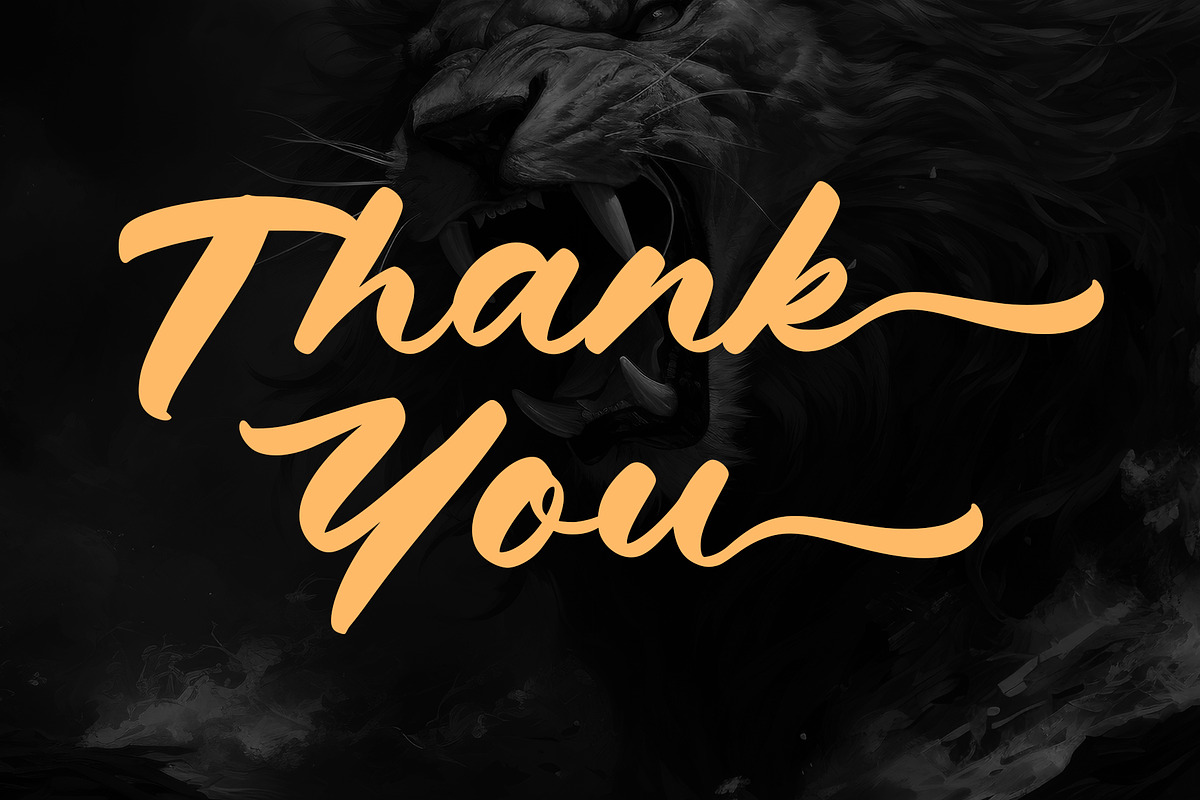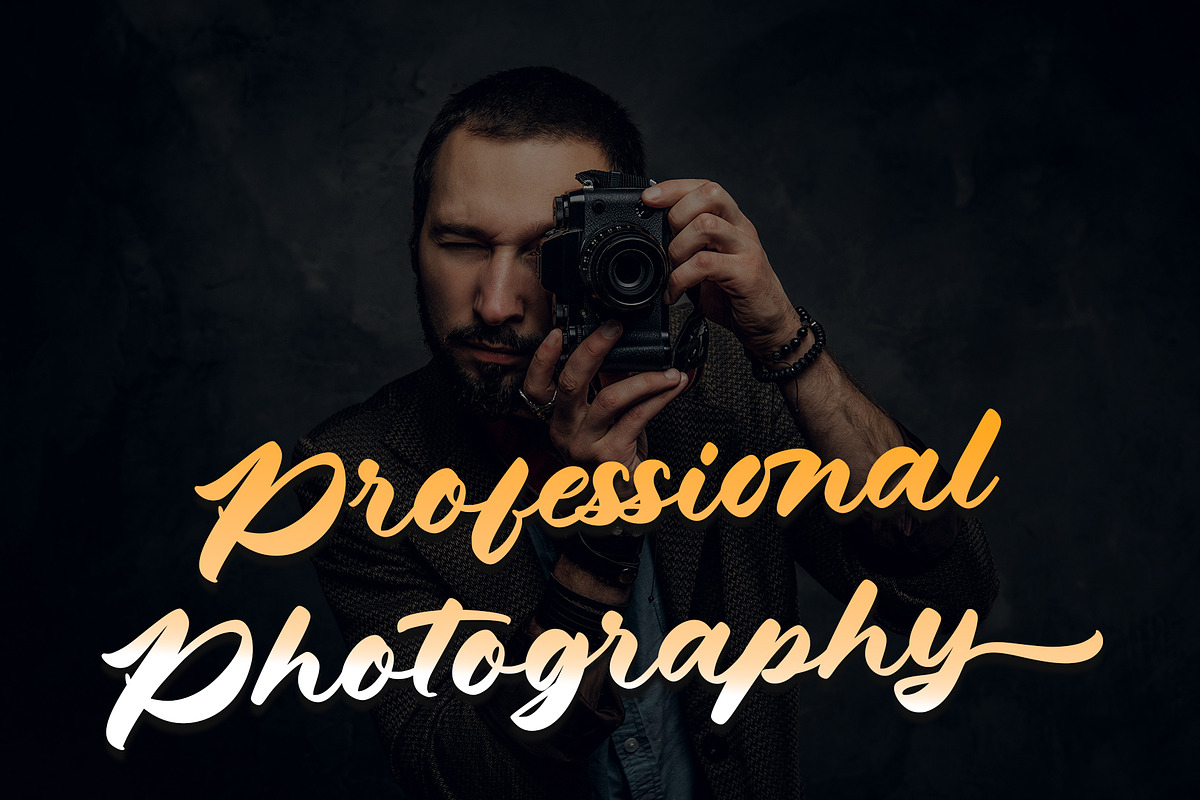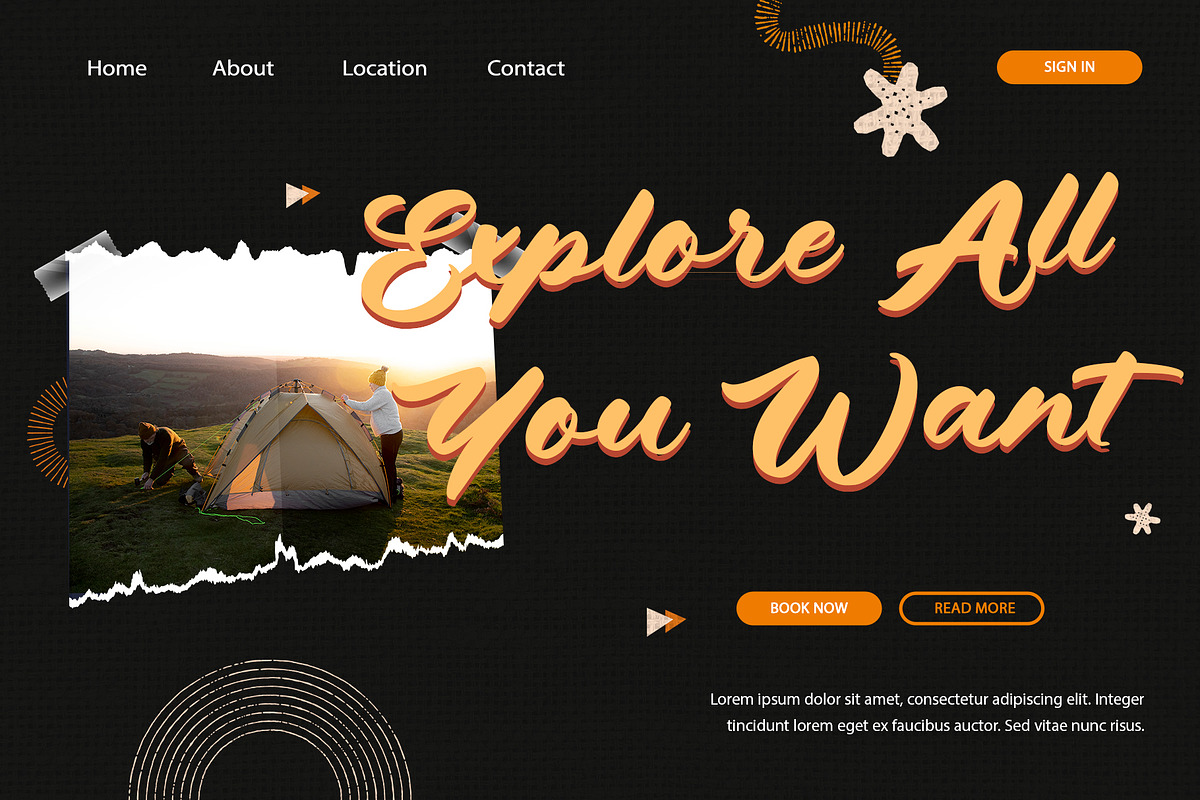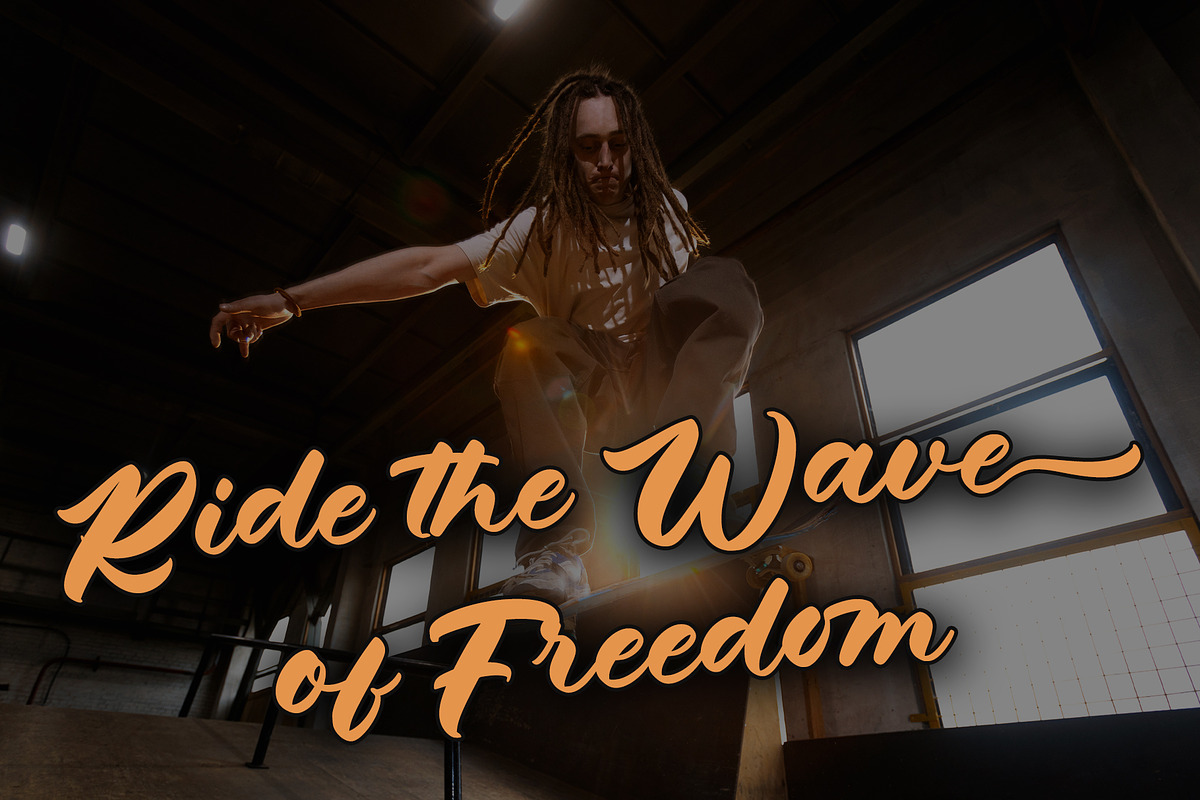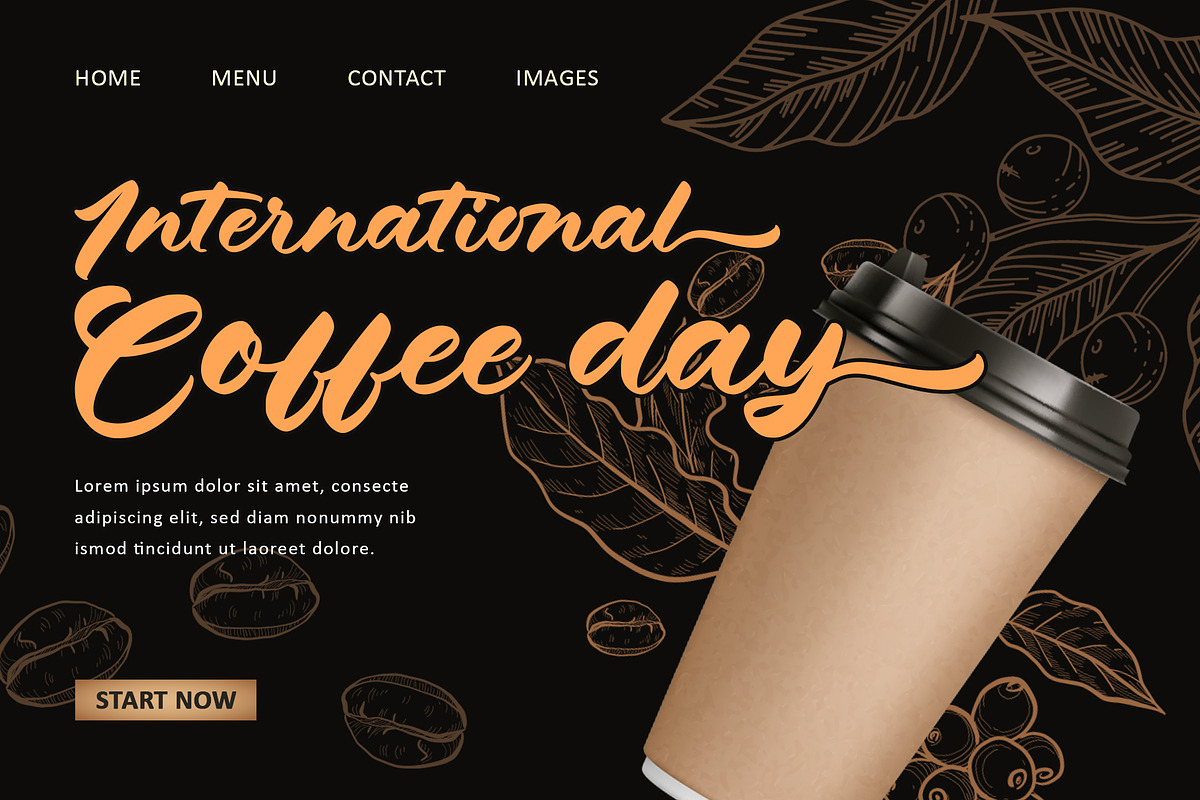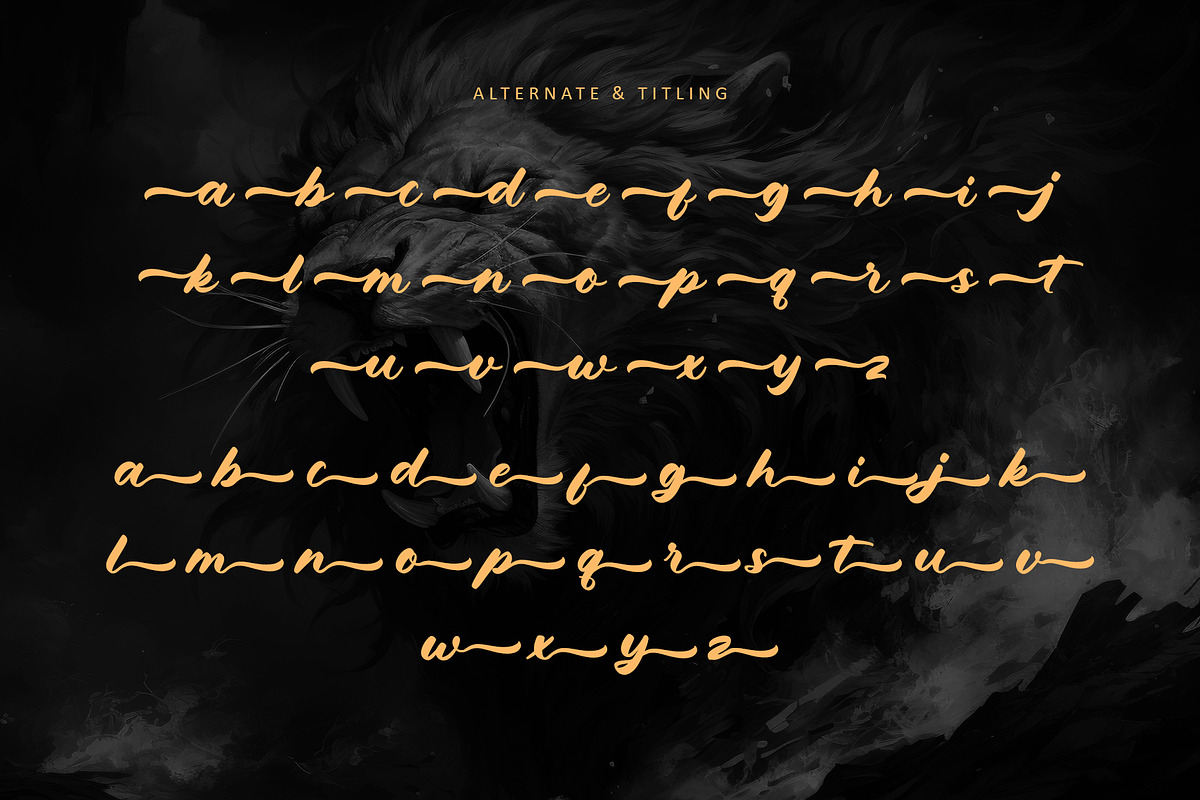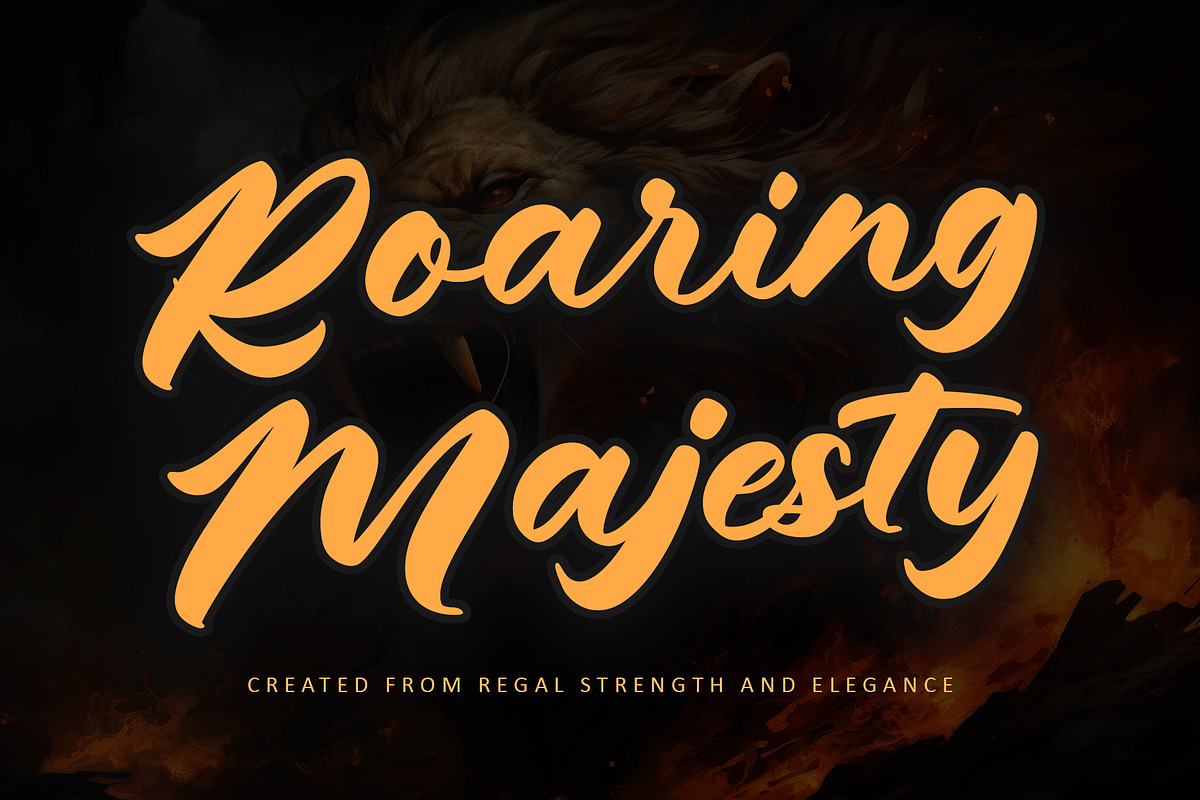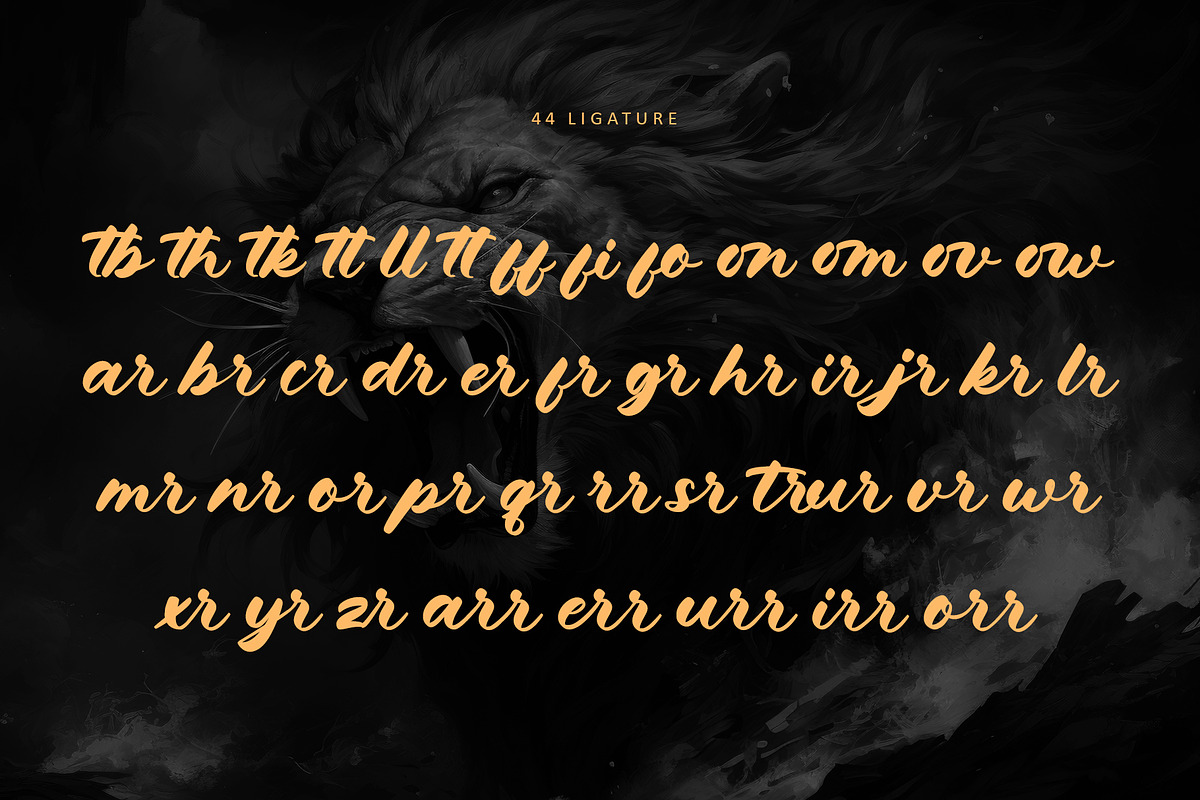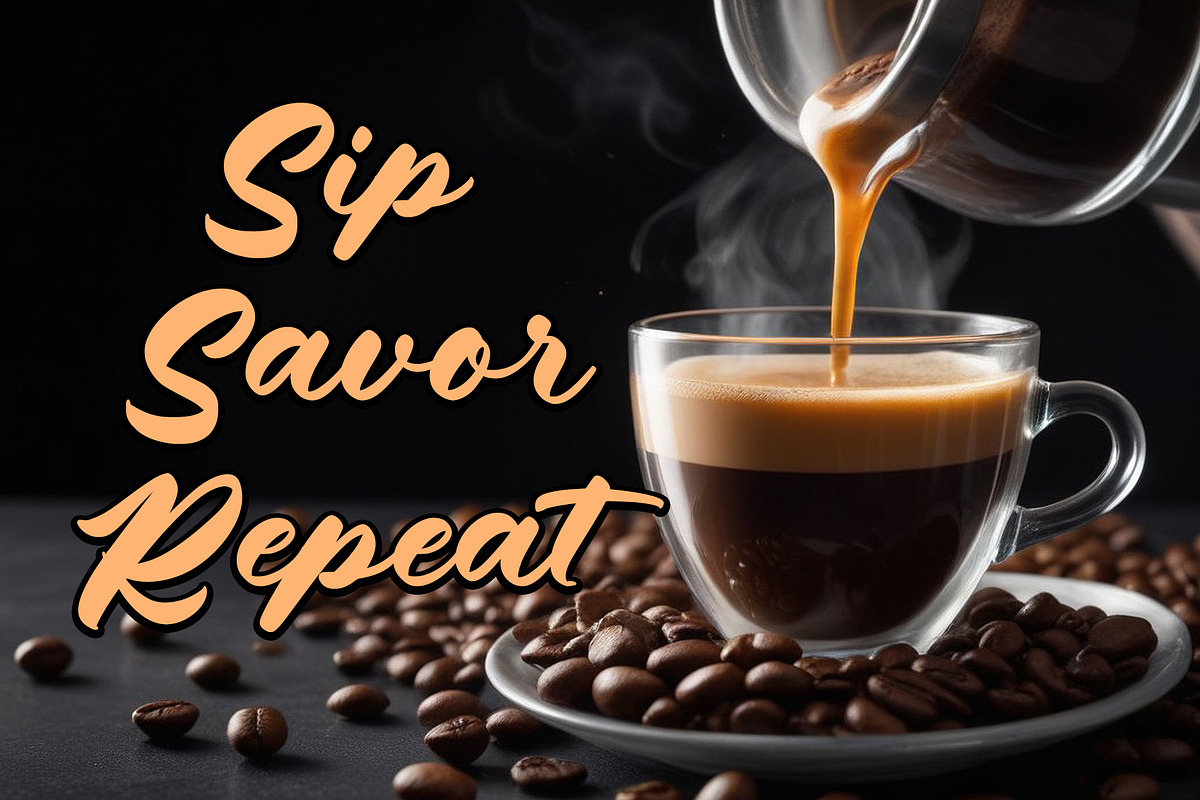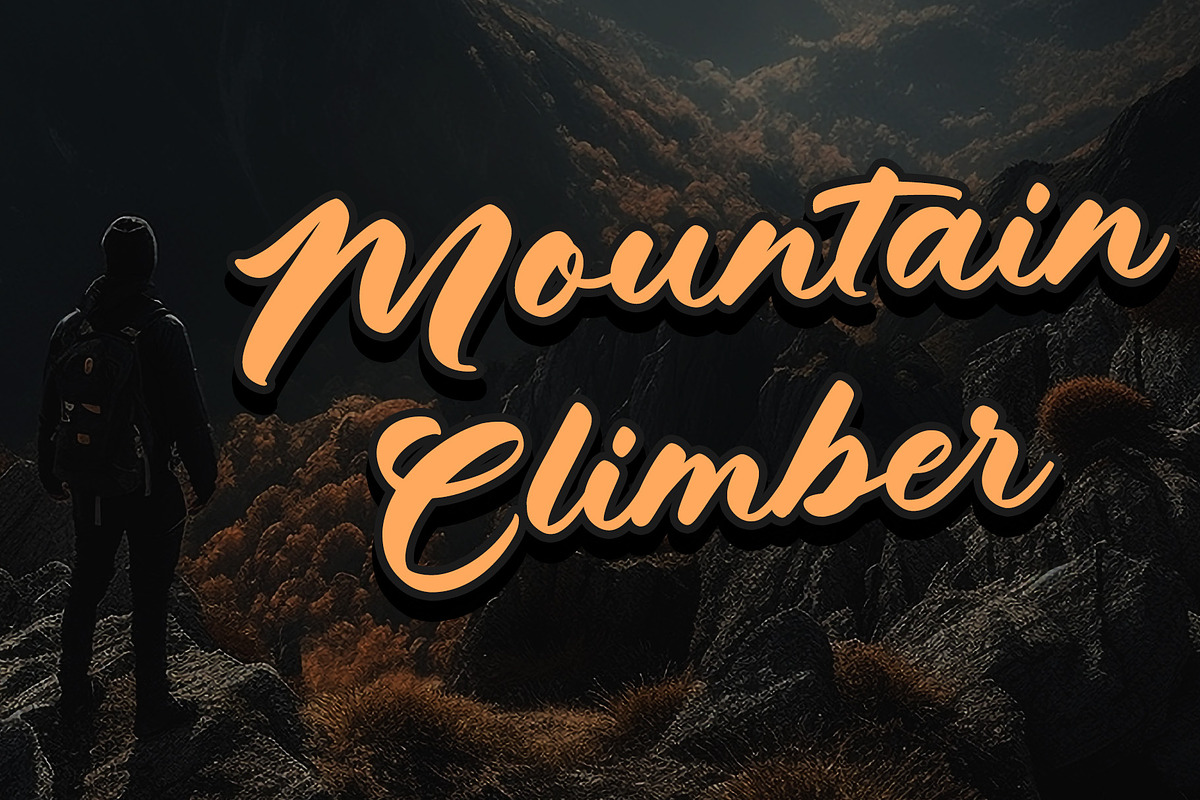
Roaring Majesty
Introducing Roaring Majesty, a bold Handwritten font that roars with regal strength and captivating elegance. Crafted to bring an energetic yet sophisticated flair to your designs, this font features bold, sweeping strokes and an organic brush texture that adds a dynamic touch to any project. Whether you're designing logos, posters, packaging, or any other creative masterpiece, Roaring Majesty commands attention and exudes confidence. Its vivid, flowing appearance ensures your work stands out with a strong, stylish impression. With PUA encoding, accessing the rich variety of expressive glyphs and swashes is effortless. Elevate your creative endeavors with Roaring Majesty, a font that seamlessly blends royal vigor and majestic charm
- Support multilingual; ä ö ü Ä Ö Ü ß ¿ ¡
- lowercase and uppercase letters
- Ligature, alternate and titling